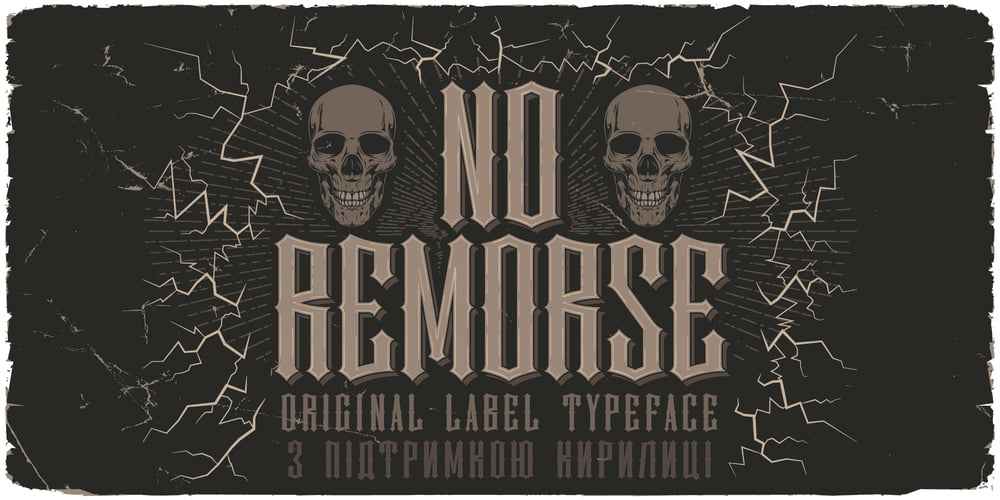
No Remorse Font Family was designed by Oleg Voznyy and published by Vozzy. No Remorse contains 6 styles and family package options. Introducing vintage label font named No Remorse. This font has a multilungual and cyrillic characters support (check out all available characters on previews). The font family has six styles: Regular, Inline, Shadow, Inline FX, Shadow FX and Aged. This font will look good on any vintage styled designs like a poster, T-shirt, label, logo, etc.